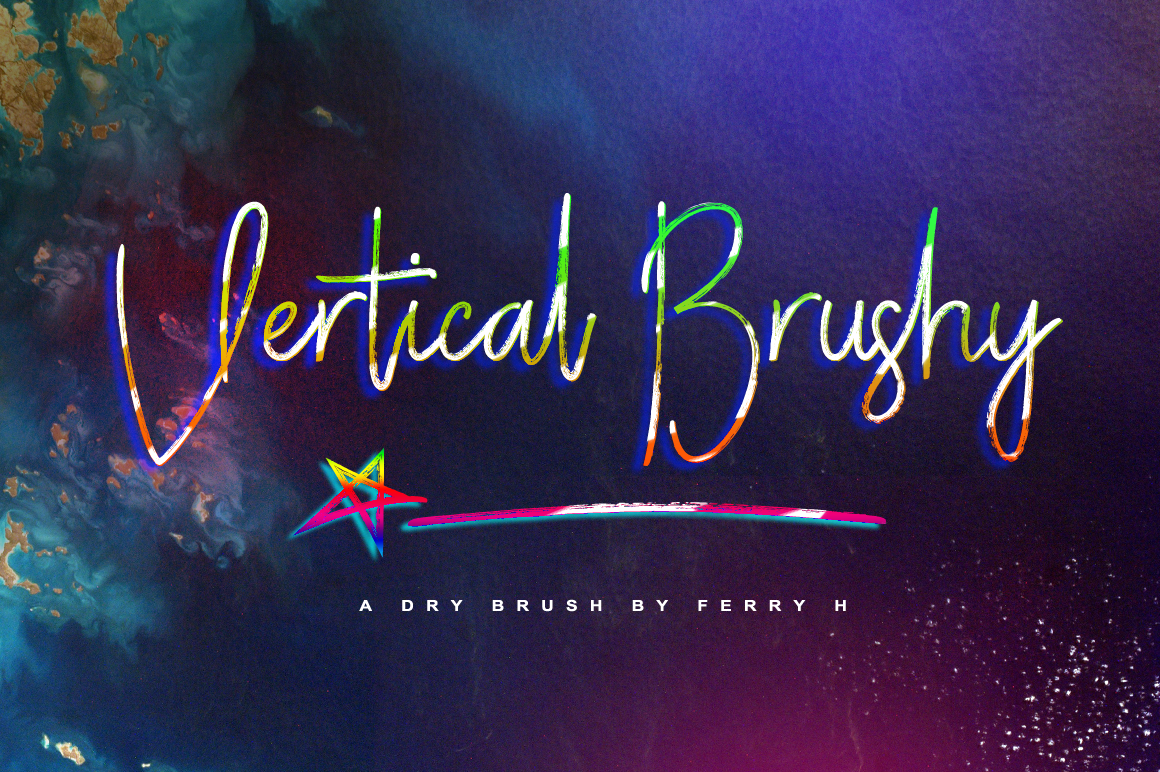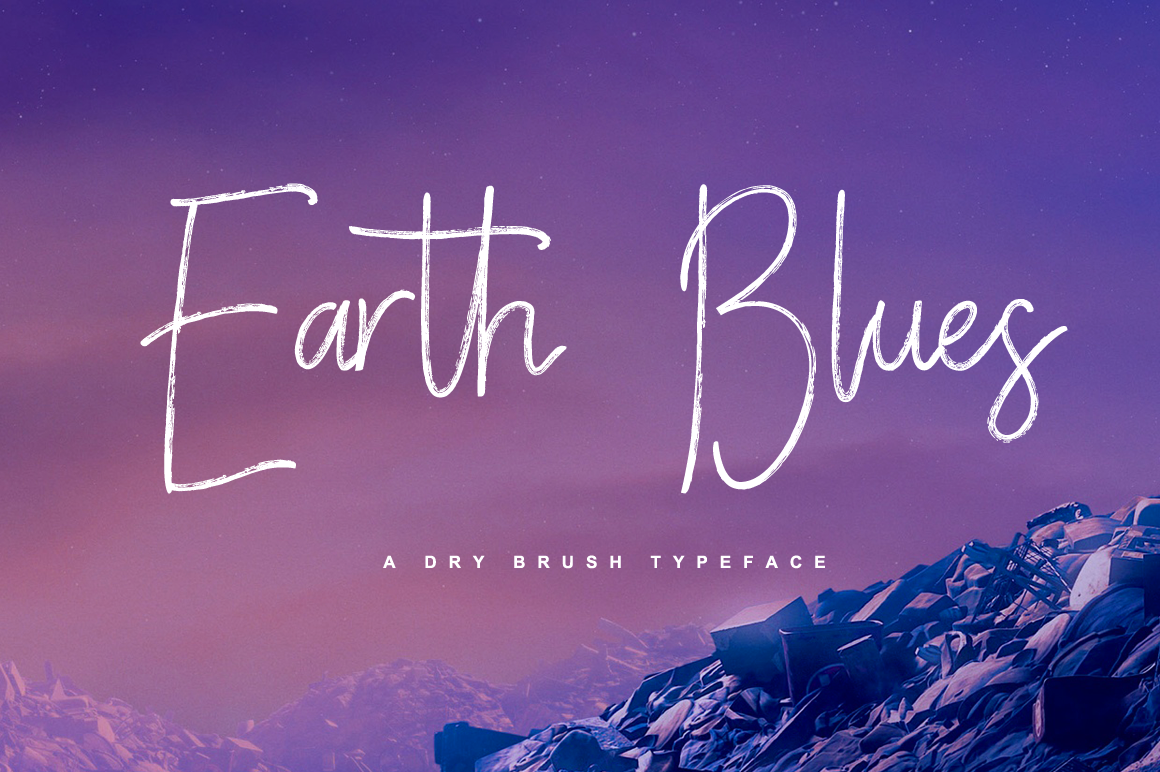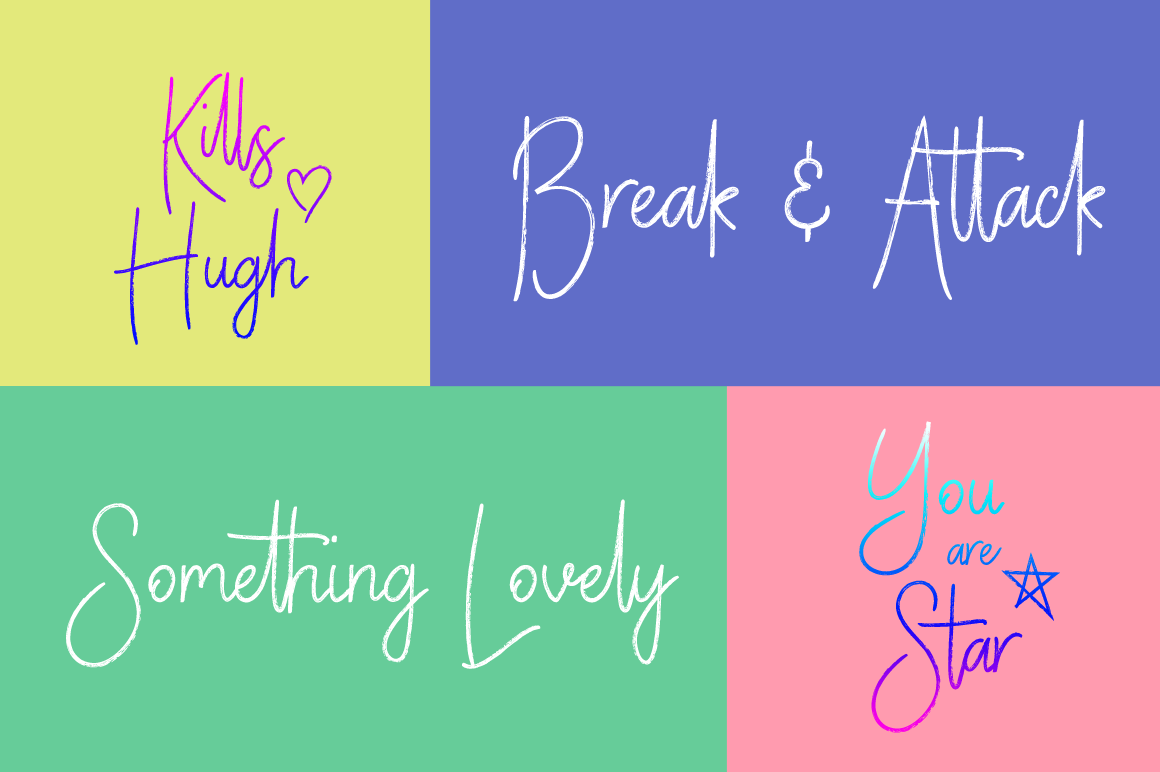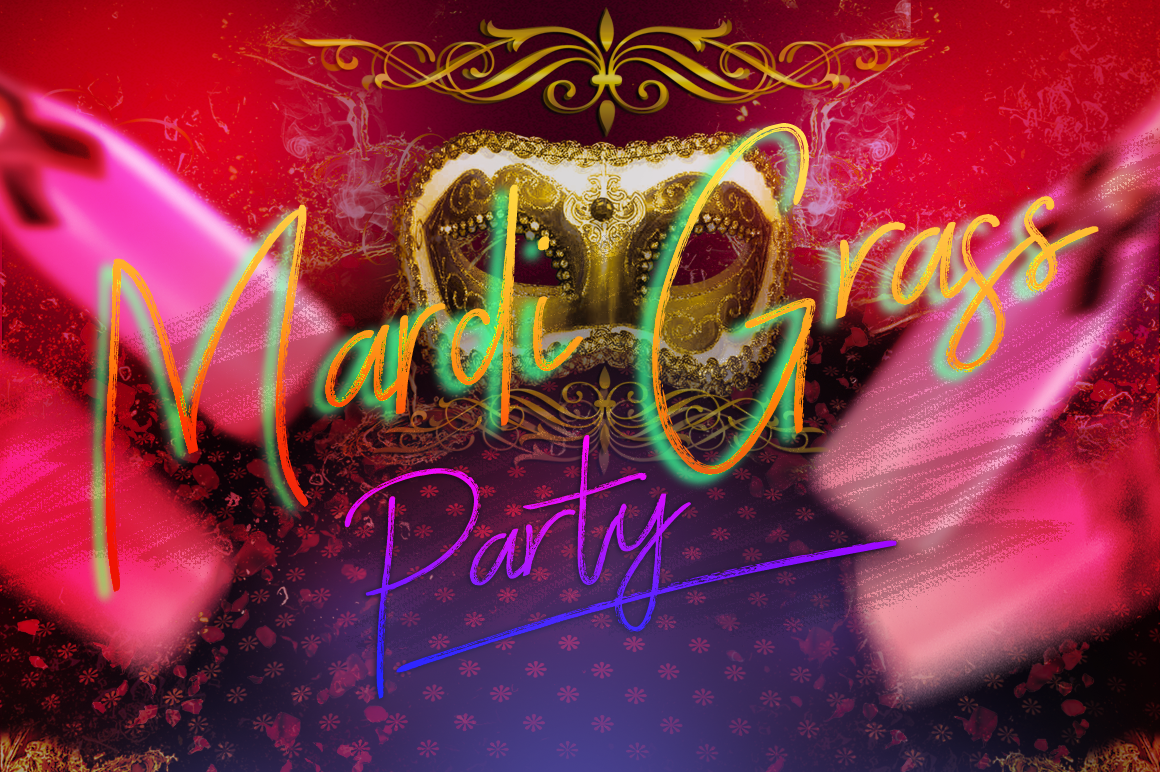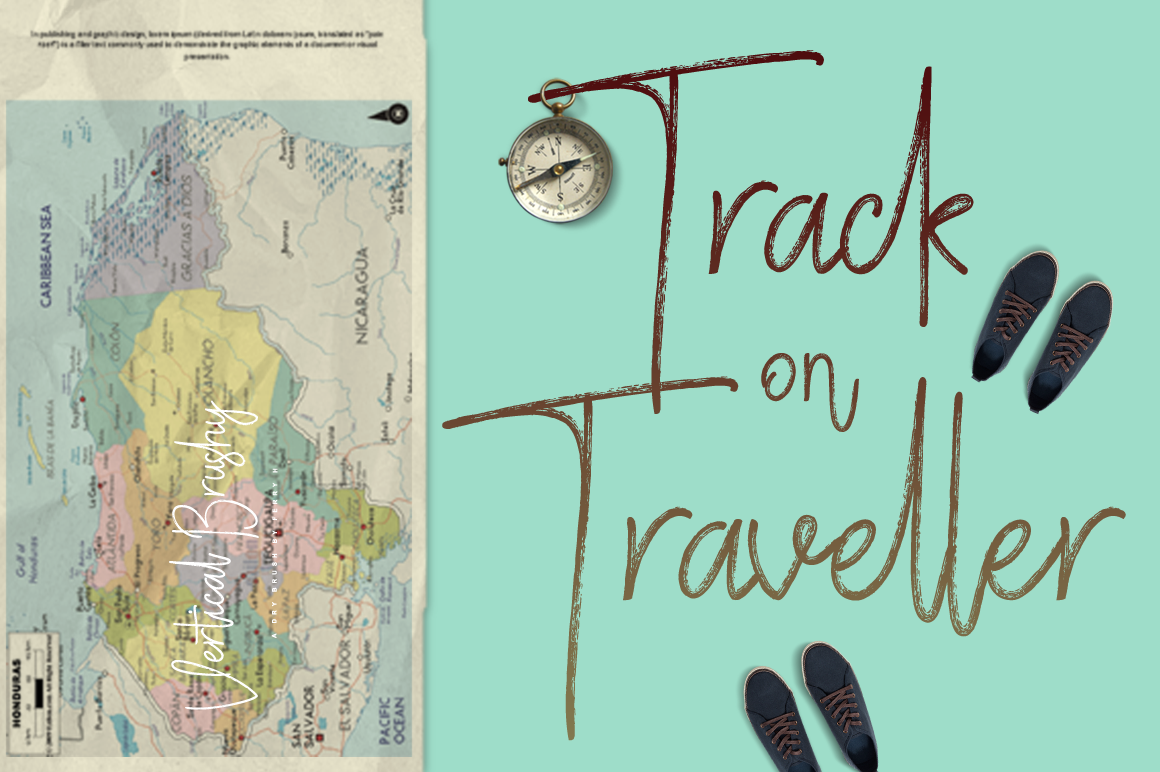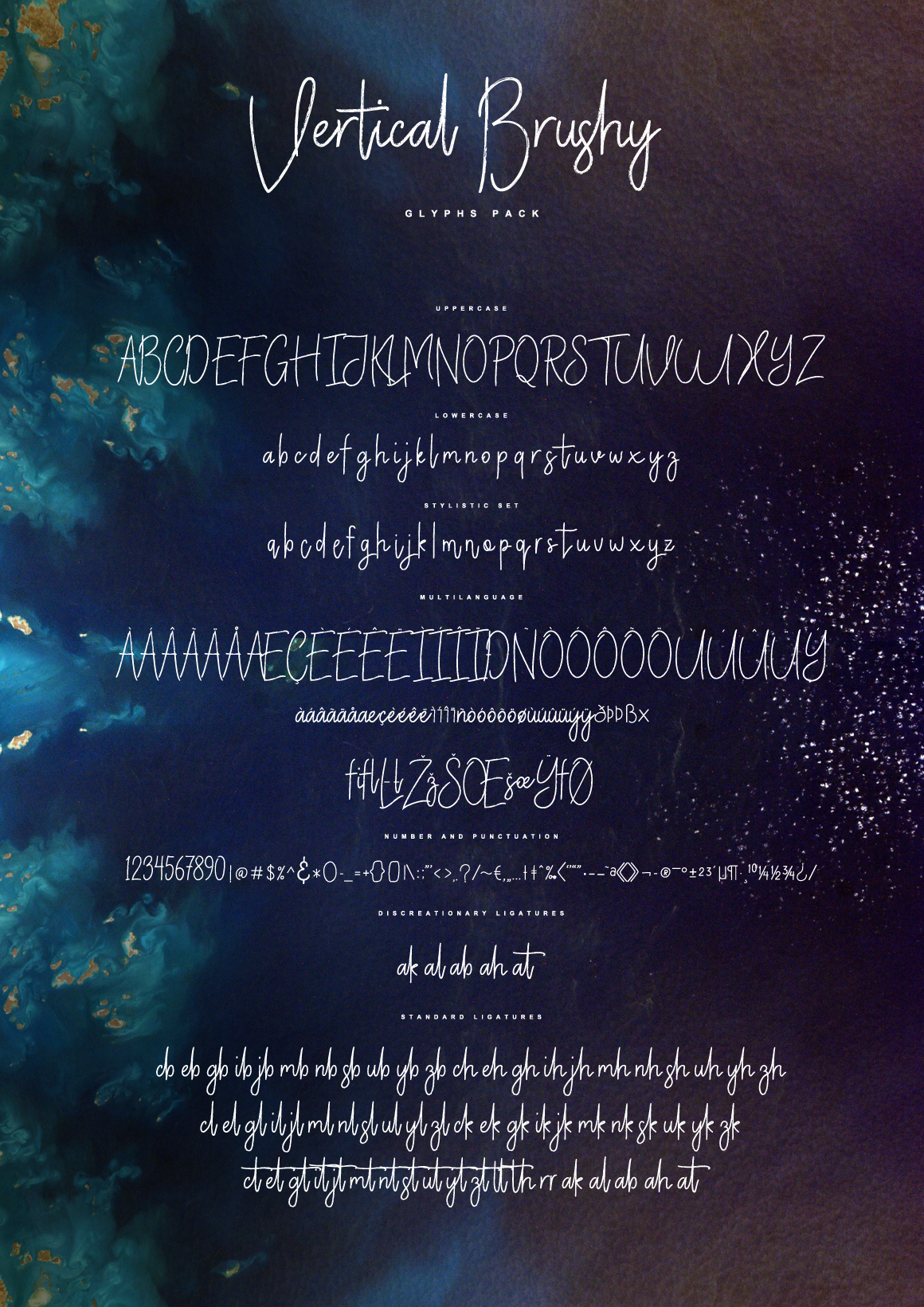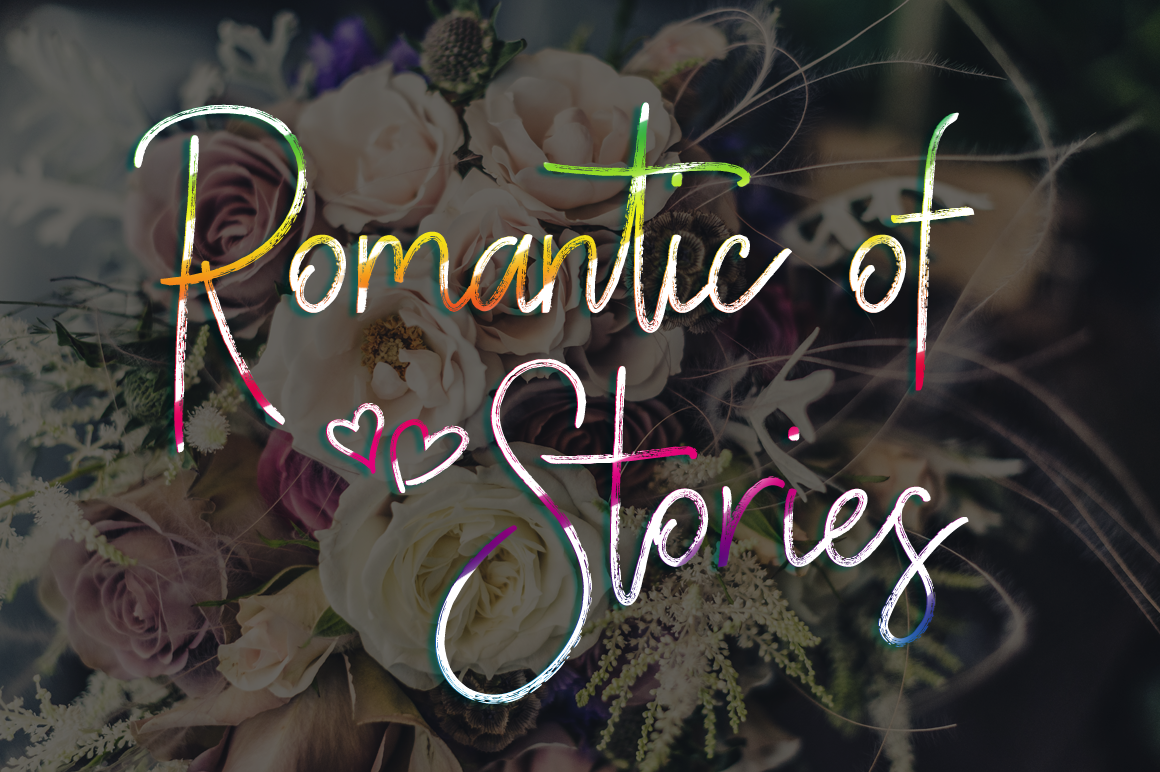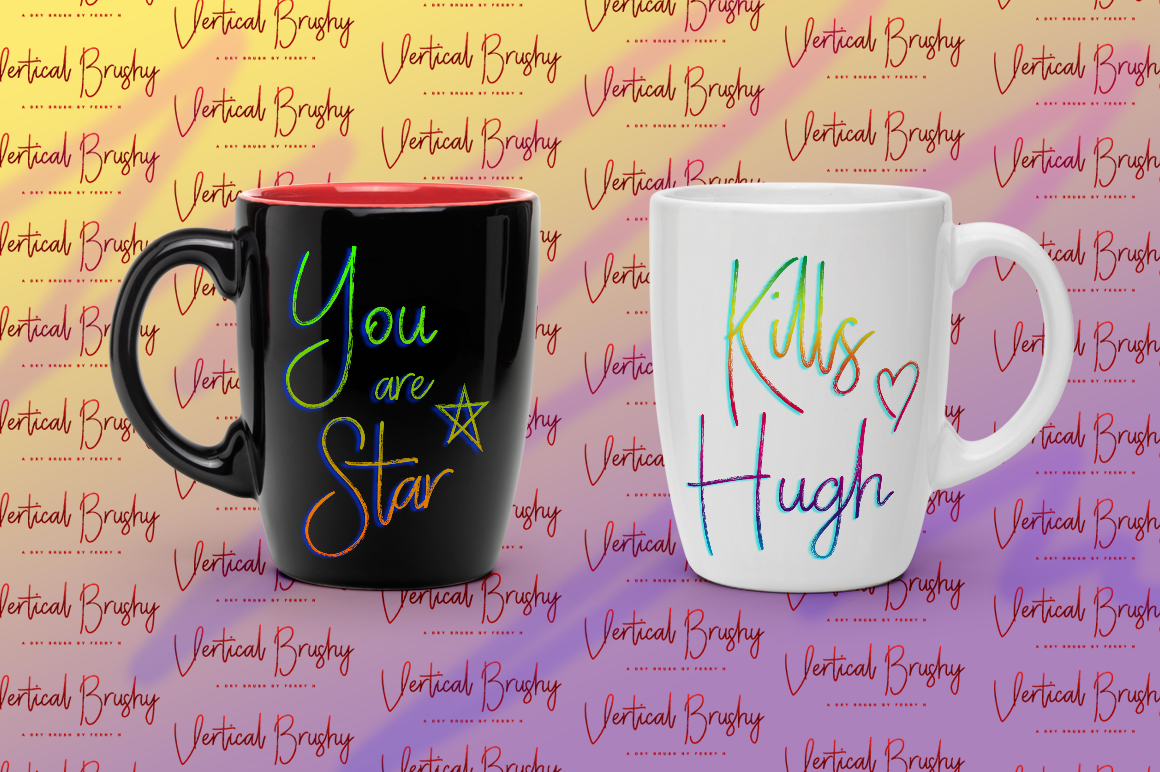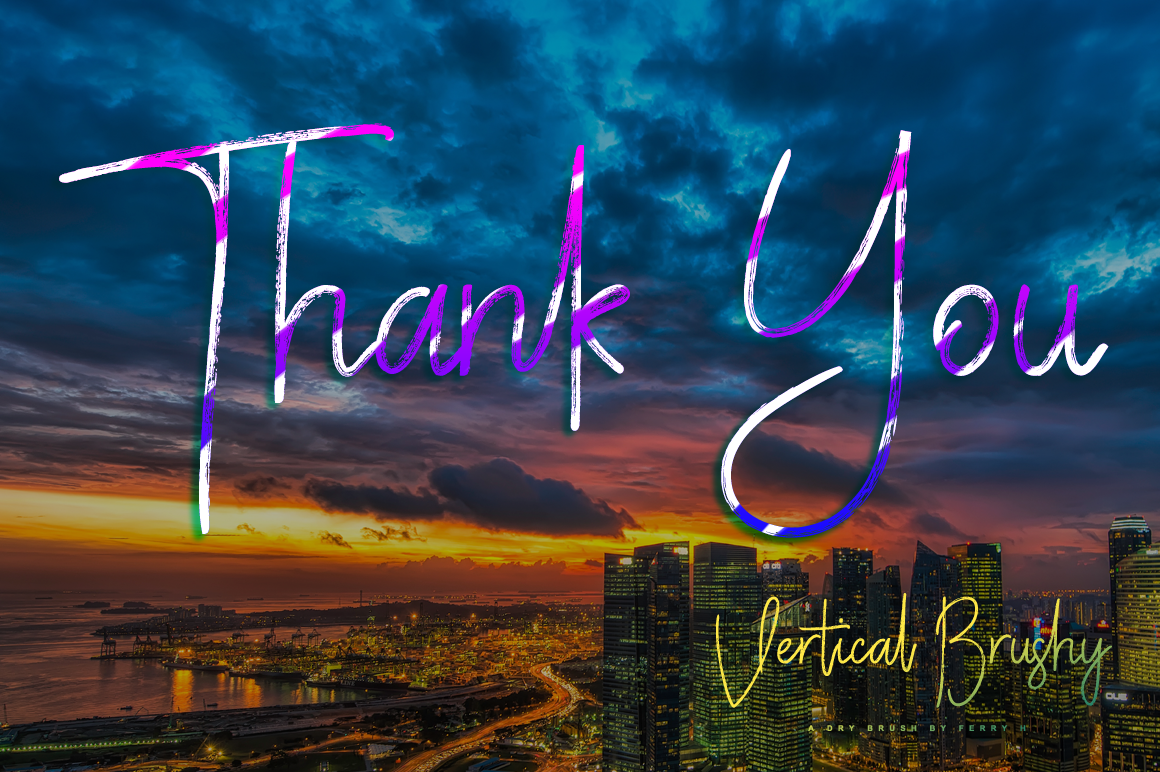
Vertical Brushy Font
About Vertical Brushy Font
Vertical Brushy is a cool and feminine font, crafted with a dry brush for a unique and on trend look. This font is in a signature style, giving you the ability to have branded and stunning designs.